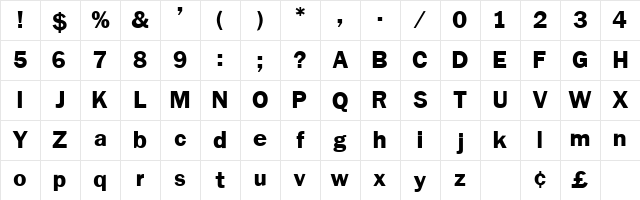
Patella Normal
Design Context for Patella
Patella is a composed and adaptable typeface that performs quietly and consistently across a wide range of design contexts.
Pro Tip: Use Patella in both headline and body roles to test its range before committing to a single application.